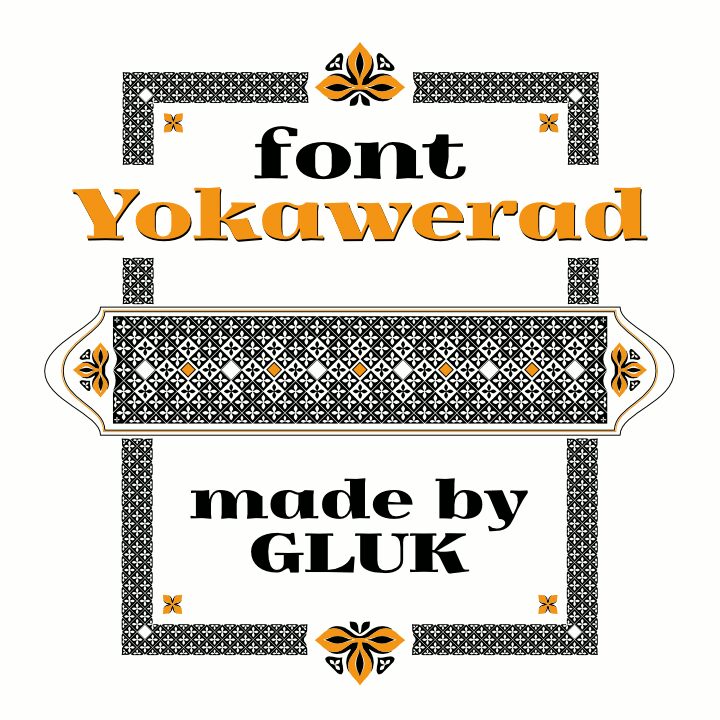
Yokawerad by gluk is a free high-contrast serif font with broad, imposing forms and sharply cut details. Its sweeping curves, fine hairlines, and sturdy triangular serifs recall dramatic editorial display faces, but the compact joins give the lettering an unusual, slightly carved quality.
Fashion mastheads are its strongest setting, especially when a publication wants grandeur with a harder edge. It also suits luxury packaging, theater posters, and cultural event branding. In those settings, the exaggerated stroke changes can become a recognizable part of the brand identity rather than neutral supporting text.